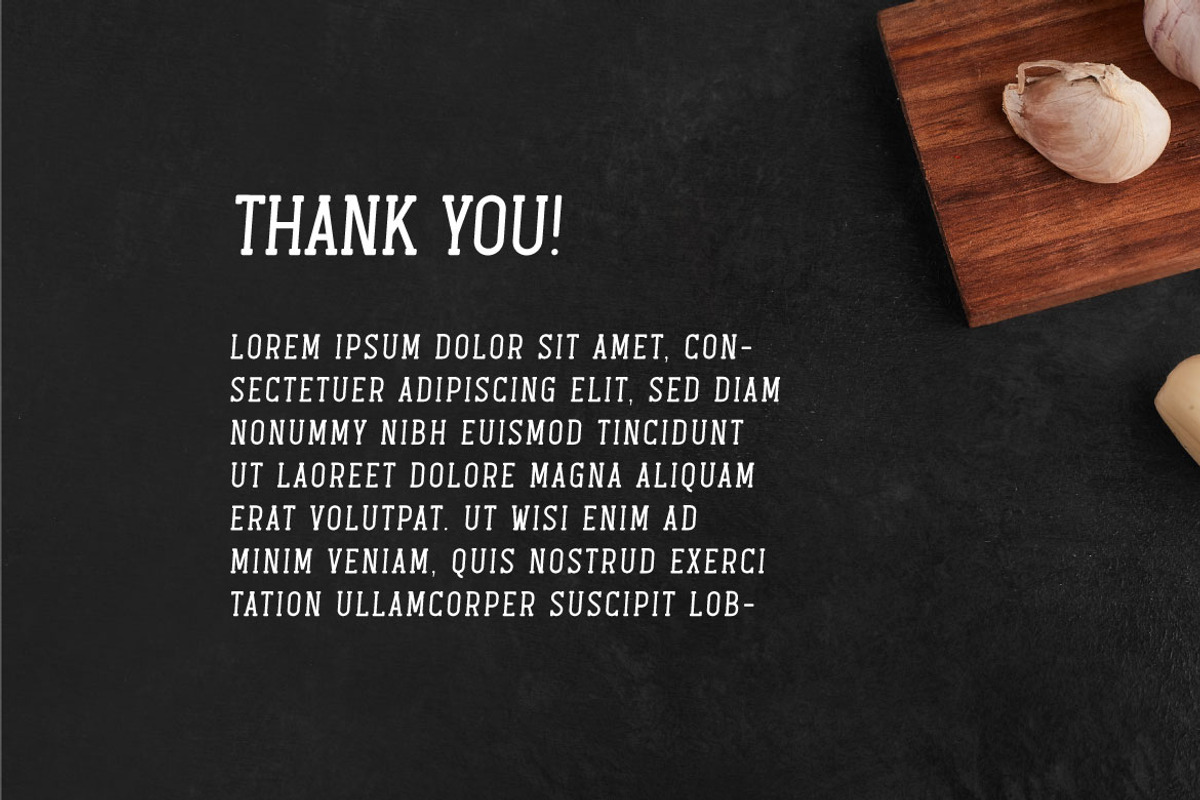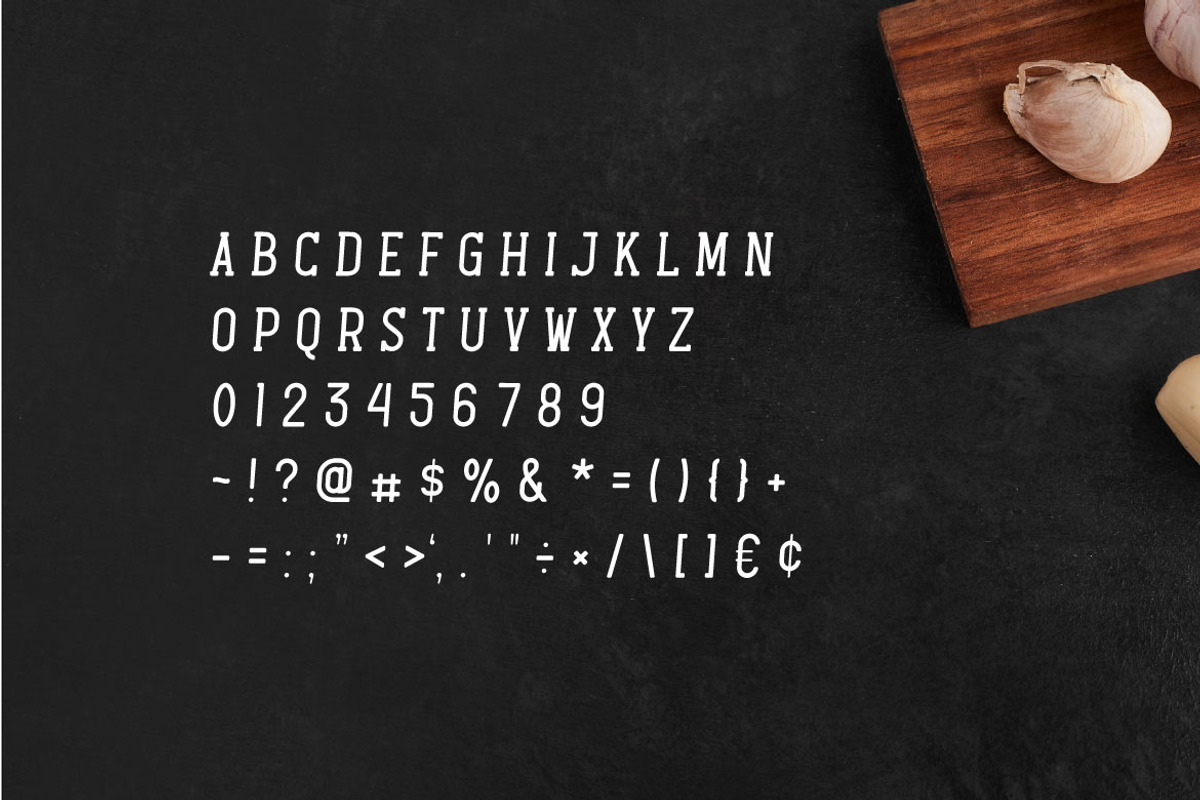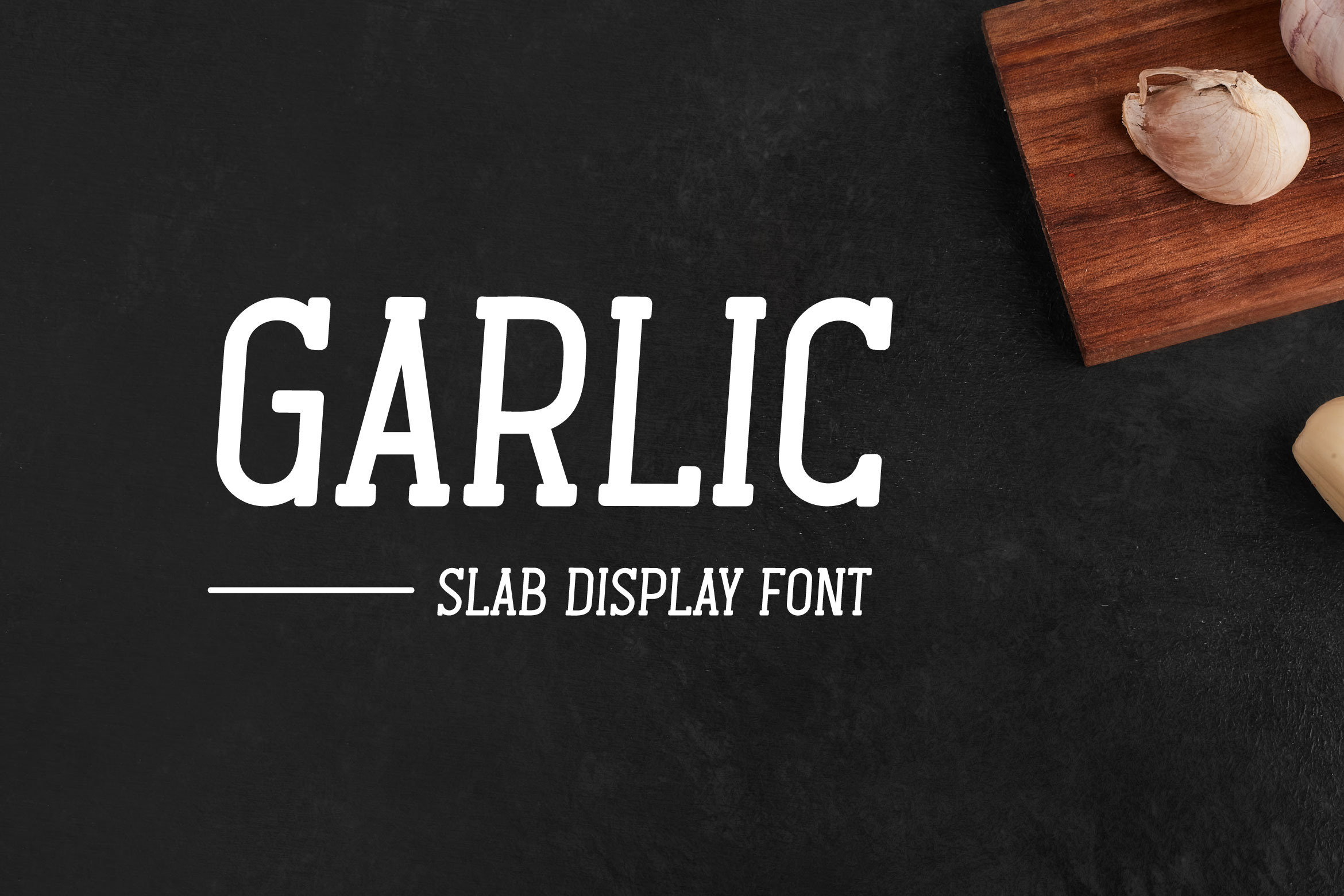
Garlic - Slab Serif Font
If you are looking for a simpole slab display font, meet GARLIC
Garlic is perfect for any works, such as poster, book title, headline of news, banner, flyer, stationery and many more. It also can be used in any size work.